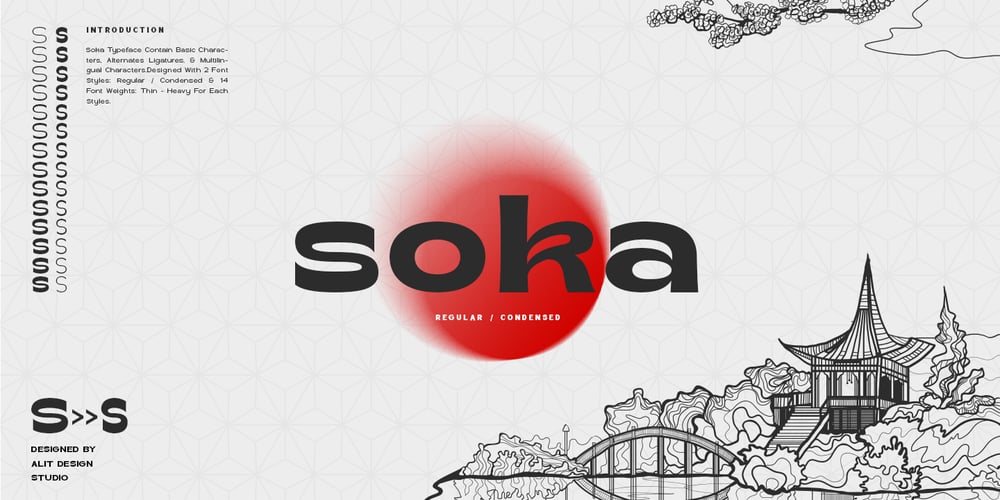
Soka Font Family was designed by Alit Suarnegara and published by Alit Design. Soka contains 28 styles and family package options. Introducing Soka TypefaceSoka font is inspired by a sans serif font that is retro style but still modern and unique. With a preview with a Japanese concept, the Soka font looks unique among other retro fonts.Sans Serif typefaces such as “Soka typeface” are very easy to apply to any design, especially those with an elegant and smooth concept, besides that this font is very easy to use both in design and non-design programs because everything changes and glyphs are supported by Unicode (PUA).The Soka typeface contains 522 glyphs with many unique and interesting alternative options. Plus, there’s a cool sans serif font family for header and description text from thin to heavy and thin condensed to heavy condensed. In the poster preview all the letters are in the Soka typeface.